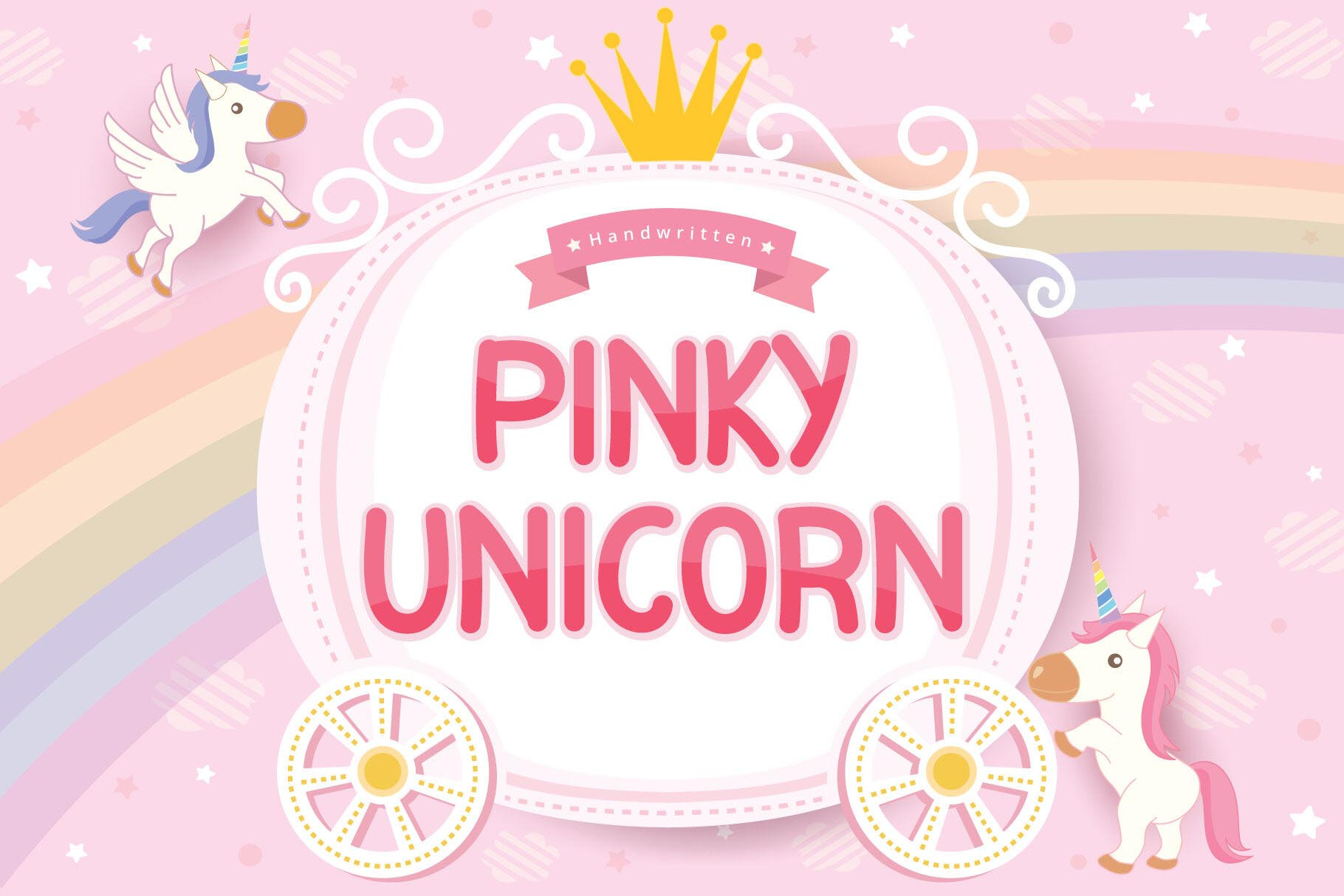
Pinky Unicorn - Display Font
Pinky Unicorn is a display font. This font can be used for products such as baby necessities, crafts, product packaging, quotes, product designs, craftsmen, labels, photography, watermarks, logos & branding. Everything can be accessed using software that supports Opentype, such as Adobe Indesign, Adobe CS Illustrator, Adobe Photoshop CC, and Corel Draw.